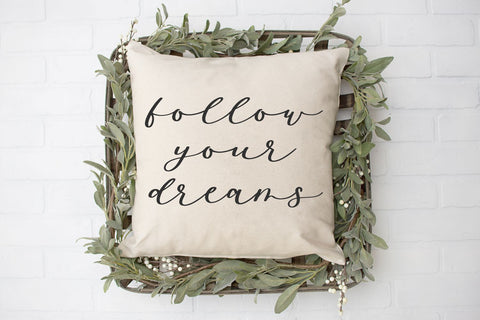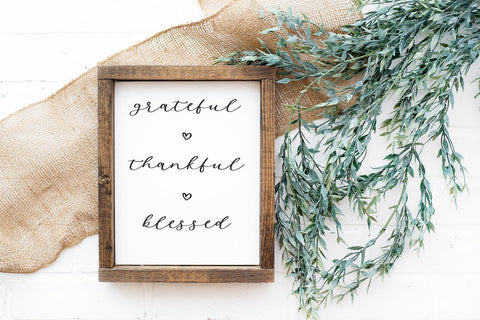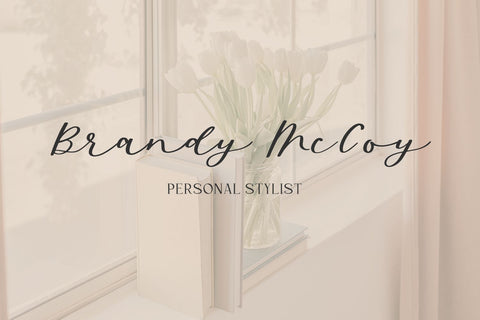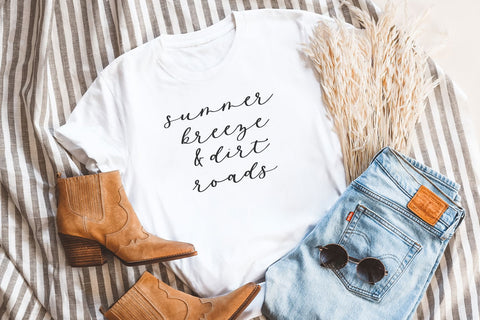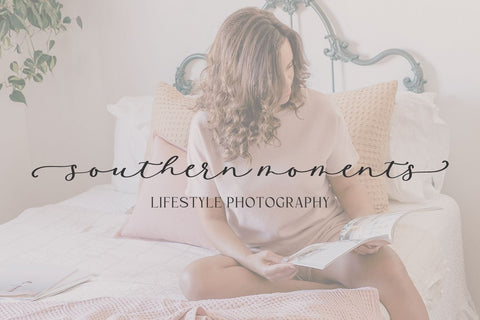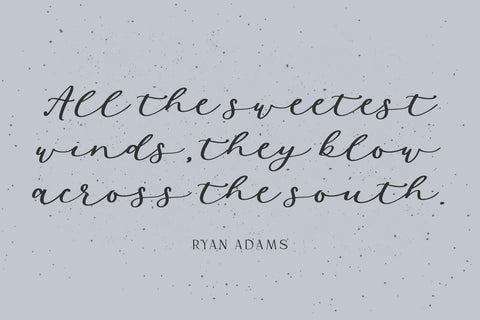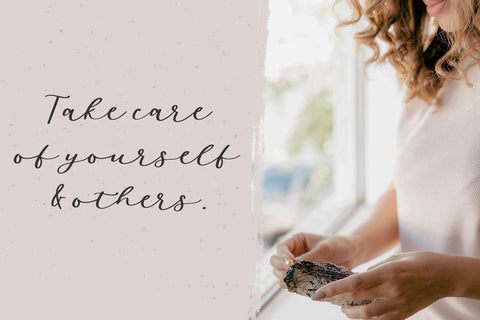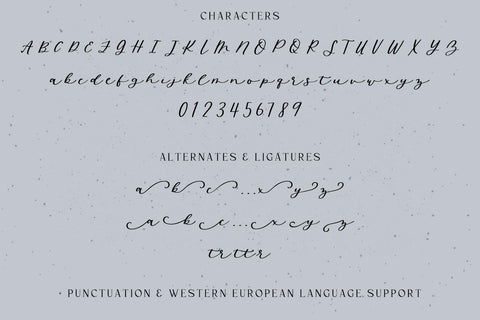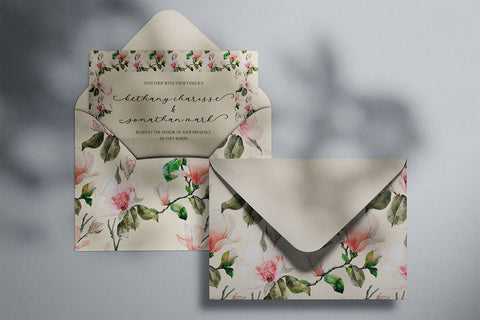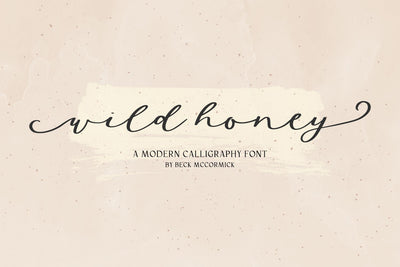
Wild Honey Script Font
Introducing Wild Honey, a handlettered modern calligraphy font with beautiful curly swashes.
Wild Honey is best for:
- wedding invitations, wedding favors, or wedding decor
- feminine, crafty projects with your Cricut or Silhouette machine, or your SVG design business
- whimsical farmhouse decor and crafts
- logos + branding
- website design + website accents, blog design
- quote graphics for social media
- feminine graphic tee shirt design & other apparel
- full upper + lowercase characters
- numbers + punctuation
- Western European Language Support
- 53 alternate character: 1 r in initial form, 26 front swash characters a-z, and 26 terminal swash characters a-z
- 3 ligatures: Br, tr, tt